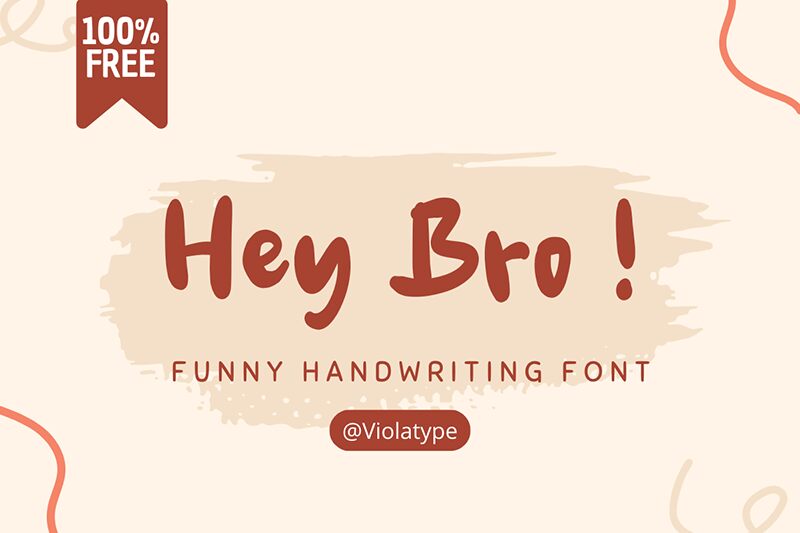
Hey Bro !
Hey Bro ! font combines a relaxed handwritten look with energetic modern style and a friendly informal vibe. This font by Viola Type offers a casual charm; it’s clean, yet detailed. It looks lively enough to grab attention yet legible for easy reading. It features modern, readable letters with handwritten curves and spontaneous energy.
Use this free handwritten font to design stationery, logos, posters, book covers, merchandise labels, websites (banners), social media layouts (posts), creative names/titles, t-shirt prints, or event cards/invites/posters. When you download Hey Bro ! it’s yours to use almost anywhere – when the occasion is right!